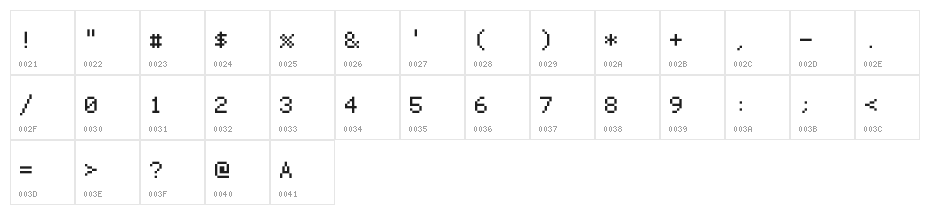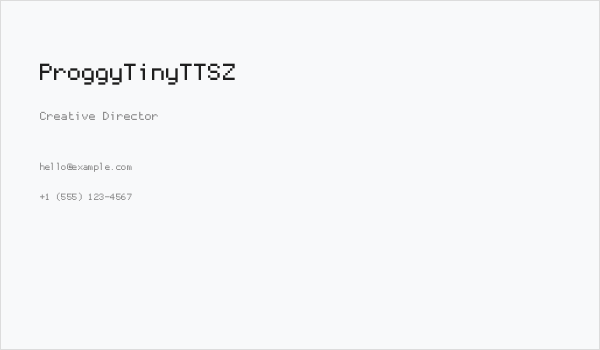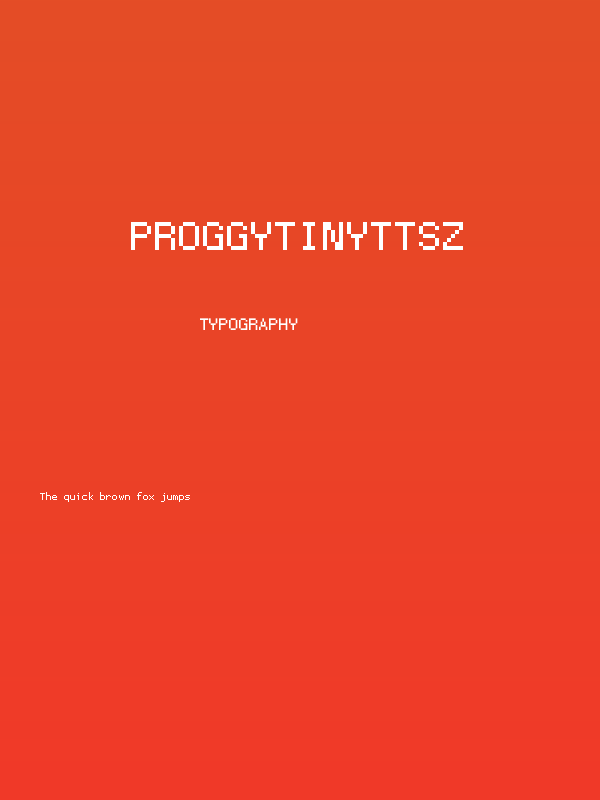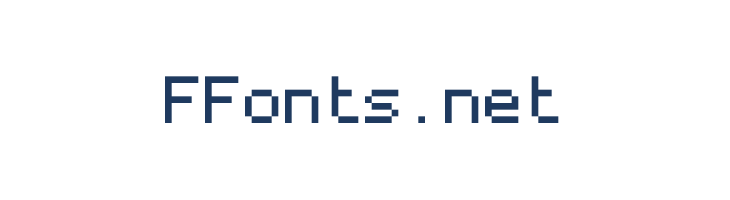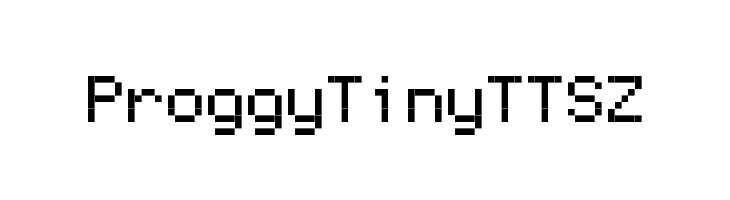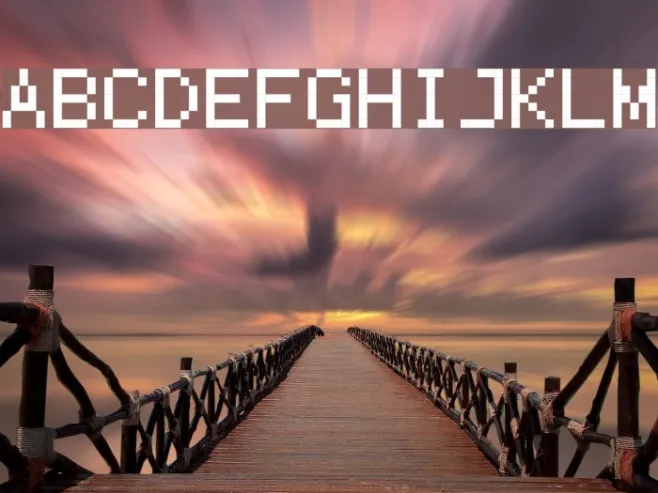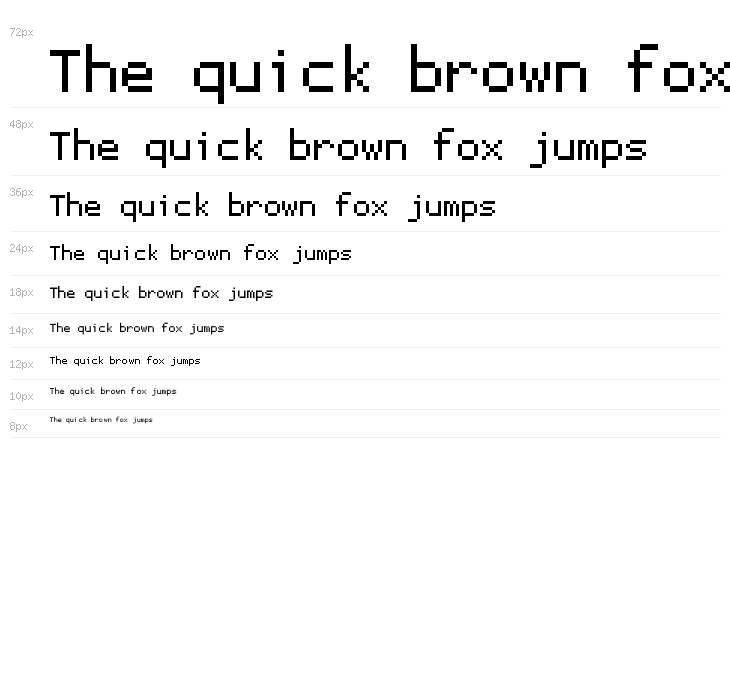
ProggyTinyTTSZ Font
ProggyTinyTTSZ Description
This font is a pixelated, monospaced typeface that embodies a retro, digital aesthetic reminiscent of early computer screens and video games. Each character is composed of a grid of pixels, giving it a blocky and geometric appearance. The uniformity in character width ensures consistent alignment, making it ideal for coding and tabular data. Despite its simplicity, the font maintains legibility at small sizes, which is a hallmark of its design. The characters are evenly spaced, contributing to a clean and organized look. This style is particularly suited for projects that aim to evoke nostalgia or a tech-oriented theme.
| Overall Style | Retro |
| Use Case | Coding, Digital displays, Retro designs |
| Proposed Projects | Ideal for coding environments, retro-themed designs, video game interfaces, and tech-related branding. |
| Is Fixed Pitch | Yes |